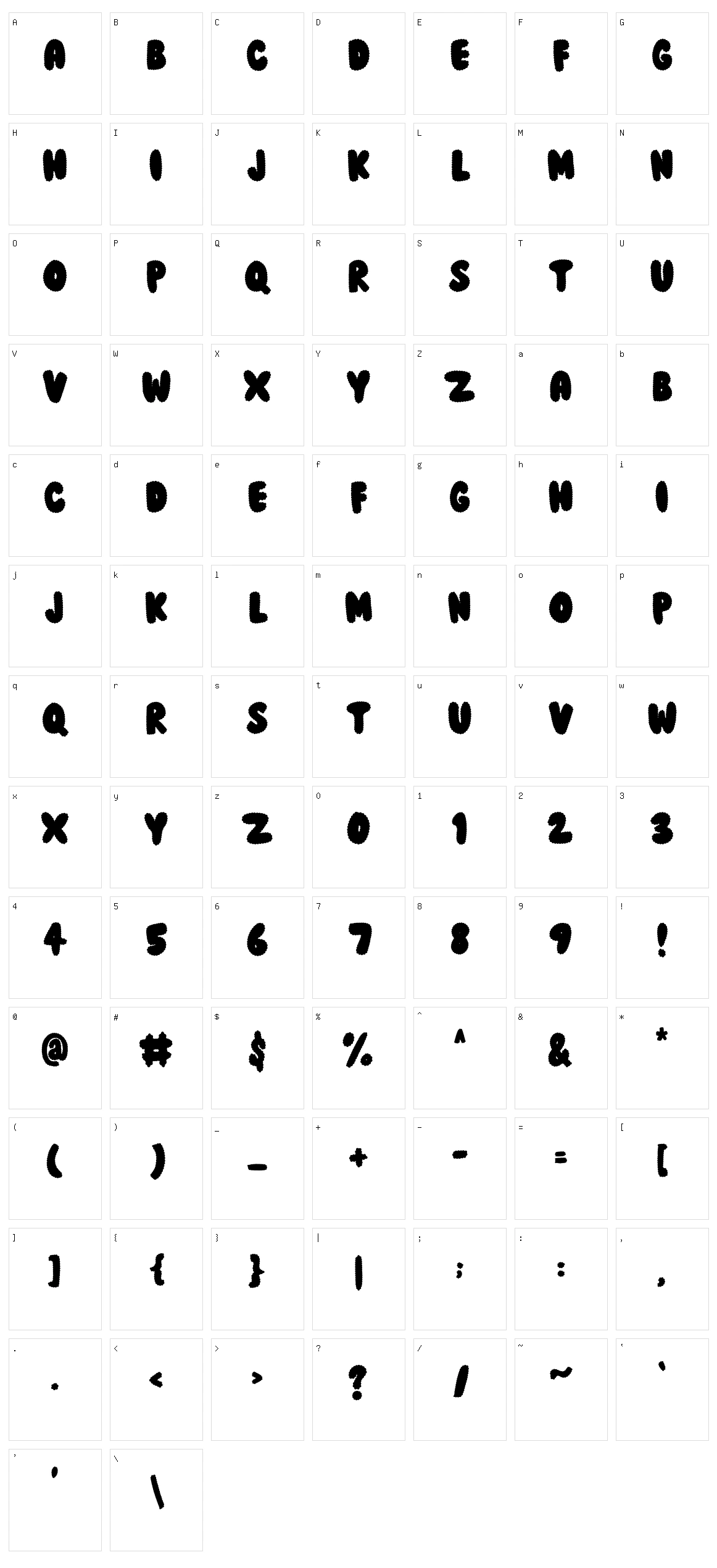
The free font Chomolo is carefully designed by The Docallisme - Amry Al Mursalaat, showcasing a thoughtful balance of creativity and usability and falls under the Cartoon font style. When you download the ZIP file, it contains only 205.42 KB of font files, making it lightweight and quick to download. Please review the license details below to understand permitted usage and distribution rights. If license information is not available, we recommend using this font for personal projects only or contacting the author directly for commercial usage permissions.